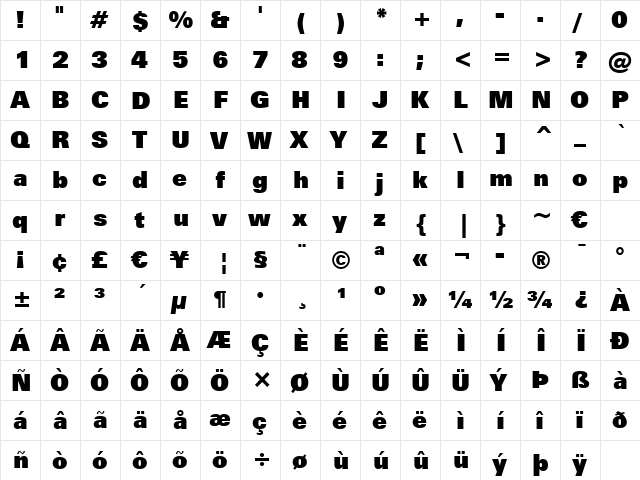
Zurich XBlk BT Extra Black Font Preview
Zurich XBlk BT Extra Black
Zurich XBlk BT Extra Black Font Details
Design Context for Zurich XBlk BT Typeface
Zurich XBlk BT takes a measured approach to typography — its balanced proportions and neutral character make it a reliable workhorse for both digital and print work.